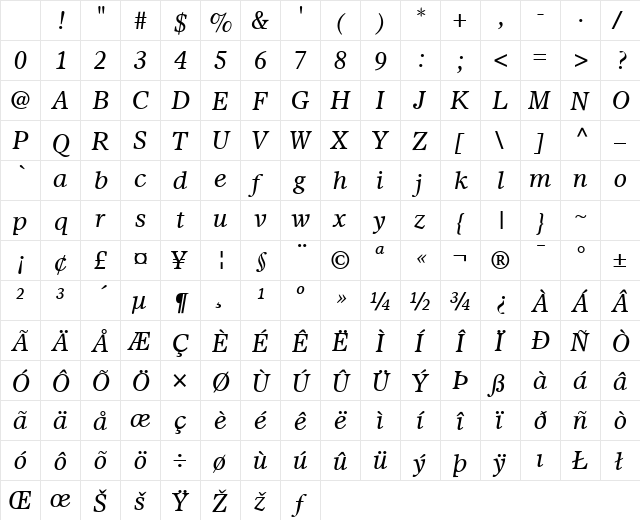
Sterling SSi is a composed and adaptable typeface that performs quietly and consistently across a wide range of design contexts. The slanted form adds forward momentum and visual energy.
Pro Tip: Use Sterling SSi for emphasis, pull quotes, and subheadings where its slanted energy can add rhythm to the layout.